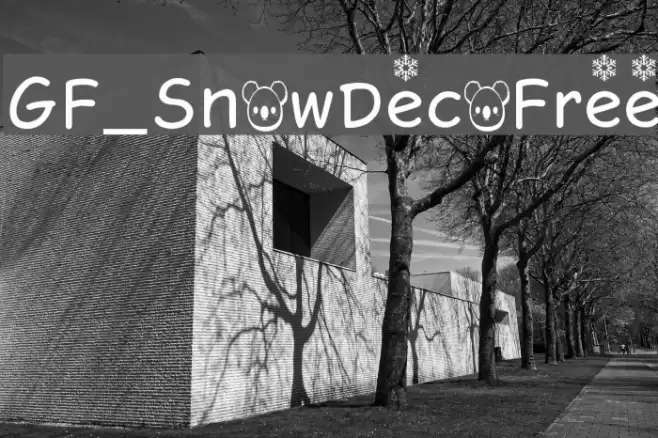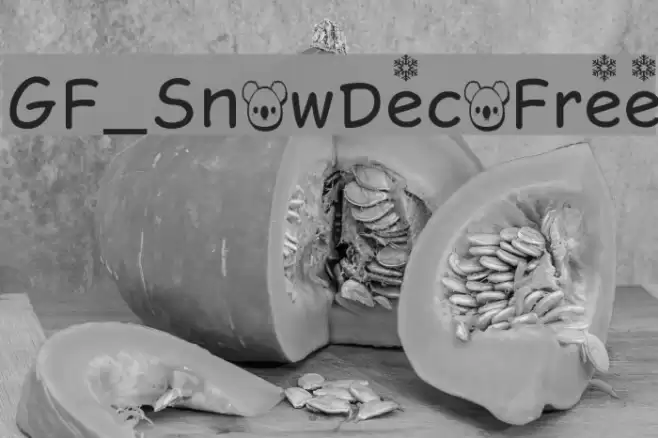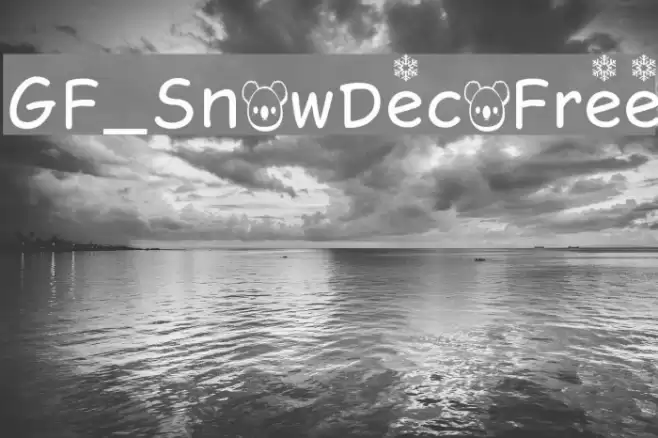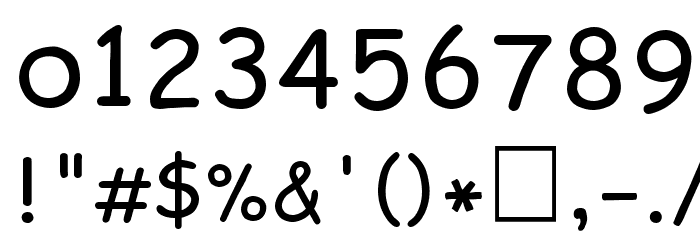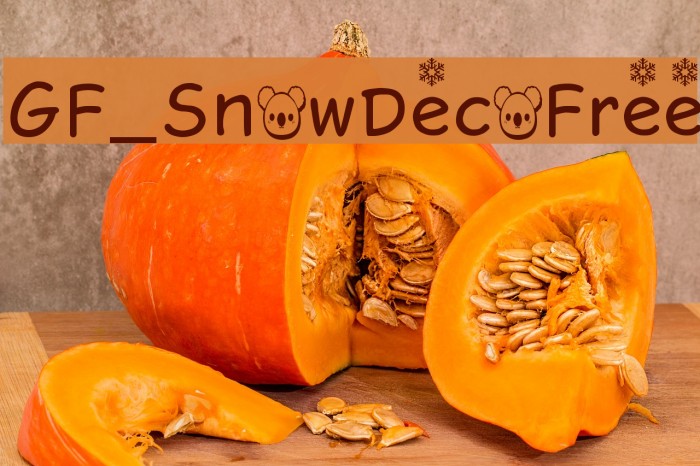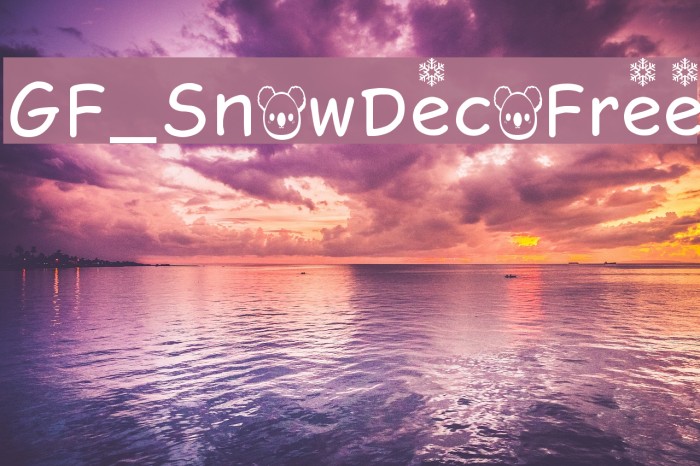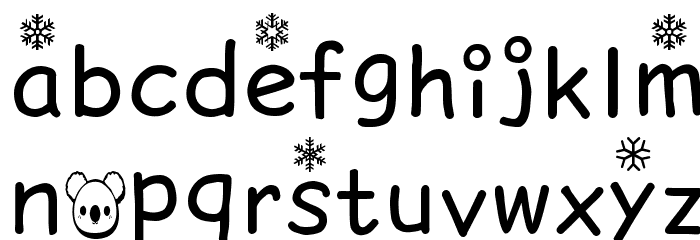
GF_SnowDeco Free Font
GF_SnowDeco Free Description
This playful and whimsical font features unique decorative elements, such as snowflakes and bear faces, integrated into the characters. The letters have a rounded, friendly appearance with a casual, handwritten style. The uppercase and lowercase letters maintain a consistent design, while numbers and special characters are clear and easily distinguishable. This font's distinctive style makes it ideal for festive or child-friendly projects, adding a touch of fun and creativity.
A playful, decorative font with snowflakes and bear faces, perfect for festive designs from Uncategorized fonts.
- Proposed Projects: Ideal for holiday cards, children's books, playful branding, and festive event invitations.
- Use Case: Headlines, Logos, Invitations